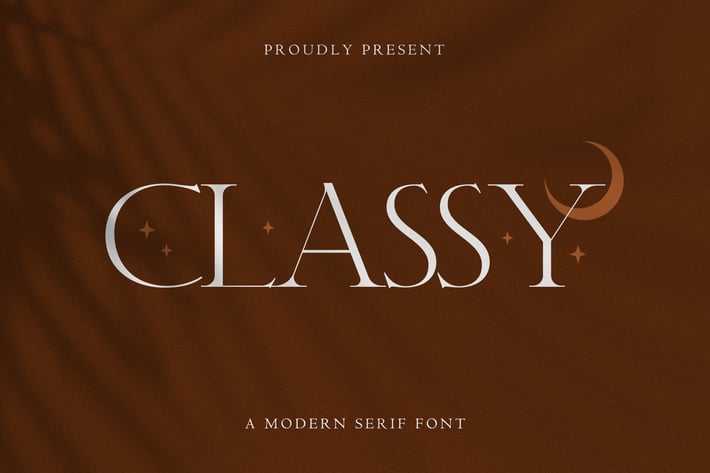
Classy – Modern Serif Font
Classy is a modern serif font, that features a simple and minimalist feel.
– Lowercase
– Ligature
– Alternate
– Multilingual Support